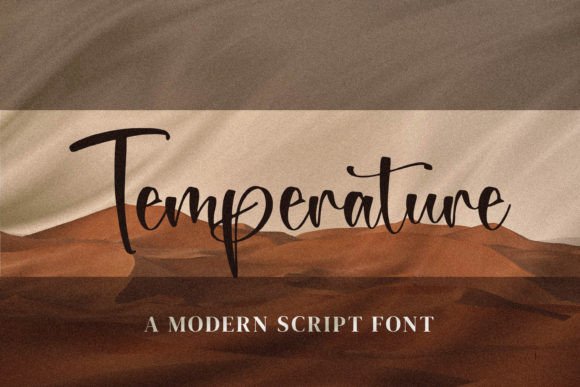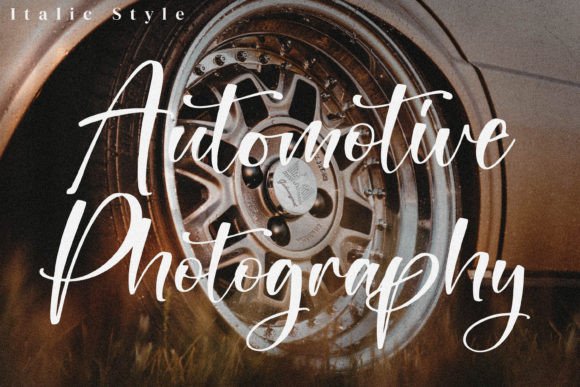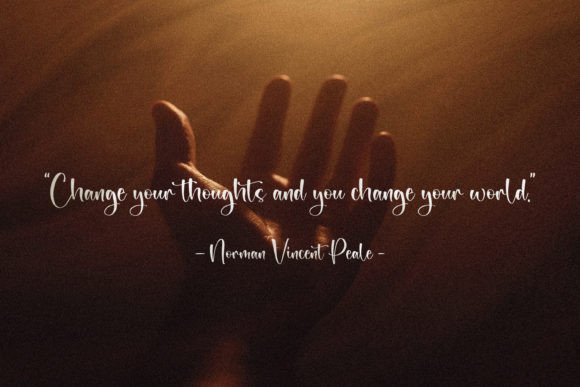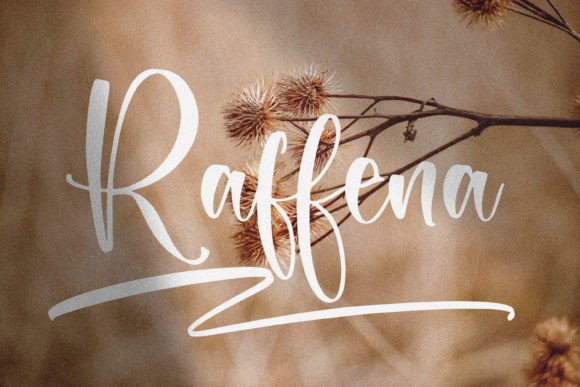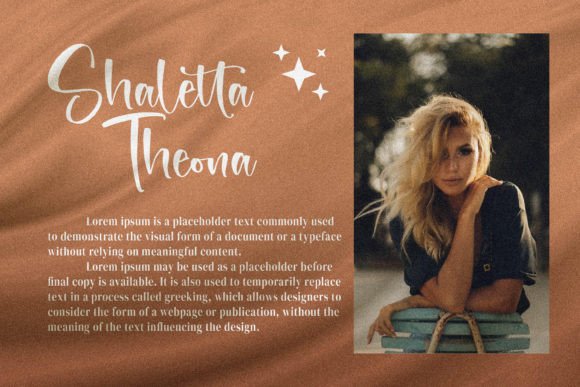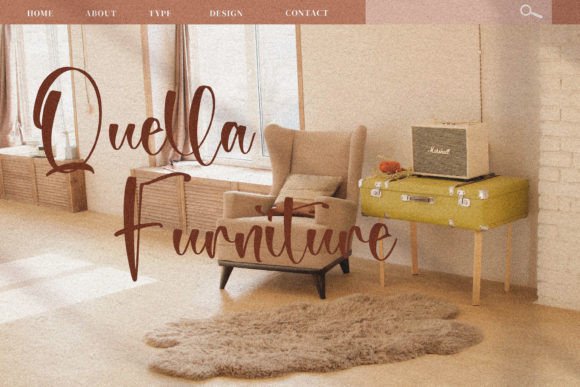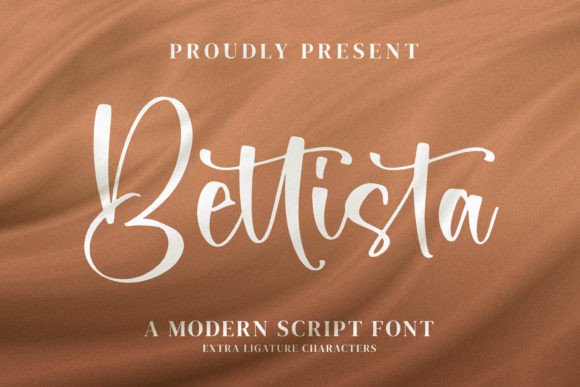
Bettista Font: Elevate Your Designs with Elegance and Sophistication
In the world of typography, a beautiful handwritten font can make all the difference in creating a lasting impression. Introducing Bettista, an elegant and stunning script font that adds a touch of refinement and luxury to your designs. Whether you’re a designer, crafter, or DIY enthusiast, Bettista is the perfect choice for projects that demand a personal and sophisticated touch.
The Charm of Bettista
Bettista boasts a charming, hand-written script that exudes warmth and character. Each letter is carefully crafted to create a sense of fluidity and movement, making it perfect for designs that require a touch of elegance. The font’s unique personality shines through in its beautiful swashes and glyphs, adding an extra layer of sophistication to your work.
Perfect for Special Occasions
Bettista is particularly well-suited for wedding-related projects, such as invitations, save-the-date cards, and thank-you notes. Its romantic and whimsical feel makes it an excellent choice for:
- Greeting cards for special occasions
- DIY crafts, such as party decorations and gift tags
- Personalized gifts, like monogrammed towels and candles
One of the standout features of Bettista is its PUA (Private Use Area) encoding. This means that you can easily access all the delightful glyphs and swashes without needing any special software or technical expertise. With PUA encoding, you can:
- Insert swashes and glyphs with just a few clicks
- Customize your text with unique flourishes and ornaments
- Save time and effort in your design process
Tips for Using Bettista
To get the most out of Bettista, here are a few tips to keep in mind:
- Use a large font size to showcase the intricate details and swashes
- Pair Bettista with a simple, clean font for a striking contrast
- Don’t be afraid to get creative and try out new and innovative uses for the font
Why Choose Bettista?
With so many fonts available, why choose Bettista? Here are just a few reasons why designers and crafters love this beautiful script font:
- Unique and eye-catching design
- PUA encoding for easy access to glyphs and swashes
- Perfect for a wide range of projects, from wedding invitations to DIY crafts
- High-quality, professional design
Bettista is a truly exceptional font that can elevate your designs to new heights. With its elegant and charming script, PUA encoding, and versatility, it’s the perfect choice for designers and crafters looking to add a touch of sophistication and refinement to their work. Whether you’re working on a wedding invitation, greeting card, or DIY project, Bettista is sure to make a lasting impression.